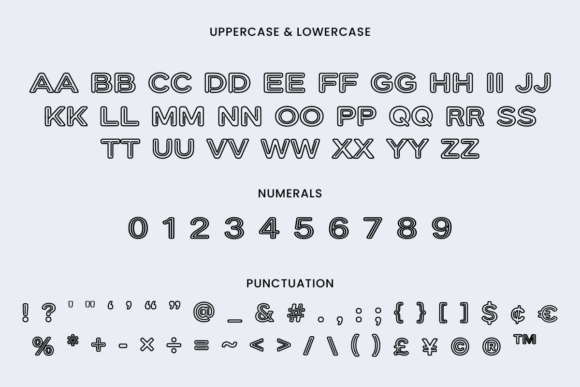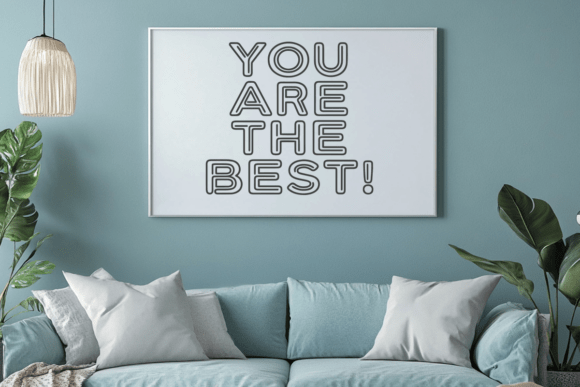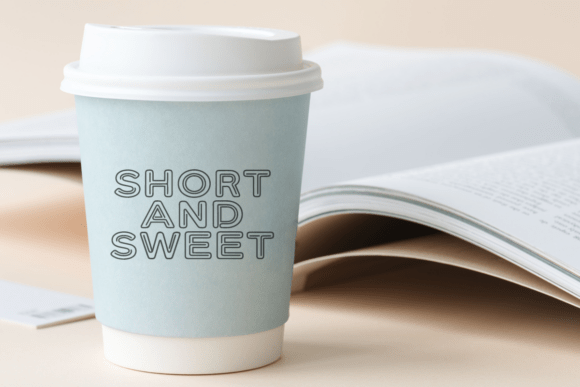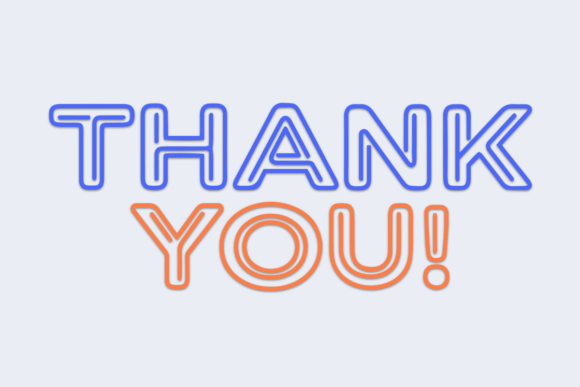
Introduction to Neon Smash Font
Light up your designs with Neon Smash, a bold and electrifying font inspired by the vibrant glow of neon text displays.
With its striking letterforms, luminous style, and edgy personality, this typeface captures the energy of city nightlife, retro signage, and modern pop aesthetics all in one Perfect for posters, logos, social media graphics, branding, and eye-catching headlines, Neon Smash instantly commands attention and adds a dynamic flair to any project.
Key Features of Neon Smash Font